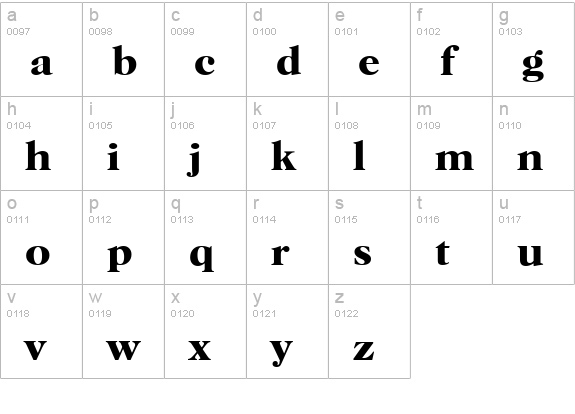
HorshamSerial-Bold is a strong, high-contrast variant in the HorshamSerial typeface family \xE2\x80\x94 well suited to headlines, attention-grabbing titles, and strong calls-to-action.
HorshamSerial-Bold font is a stylish and versatile typeface that exudes confidence and modernity. With its bold and commanding appearance, this font is perfect for making a statement in your designs. Whether you're creating eye-catching headlines or designing impactful logos, HorshamSerial-Bold is sure to leave a lasting impression. The free HorshamSerial-Bold font is now available for download at FontsMarket.com, making it easily accessible for all design enthusiasts and professionals alike. Don't miss out on the opportunity to add this sleek and powerful font to your collection today!